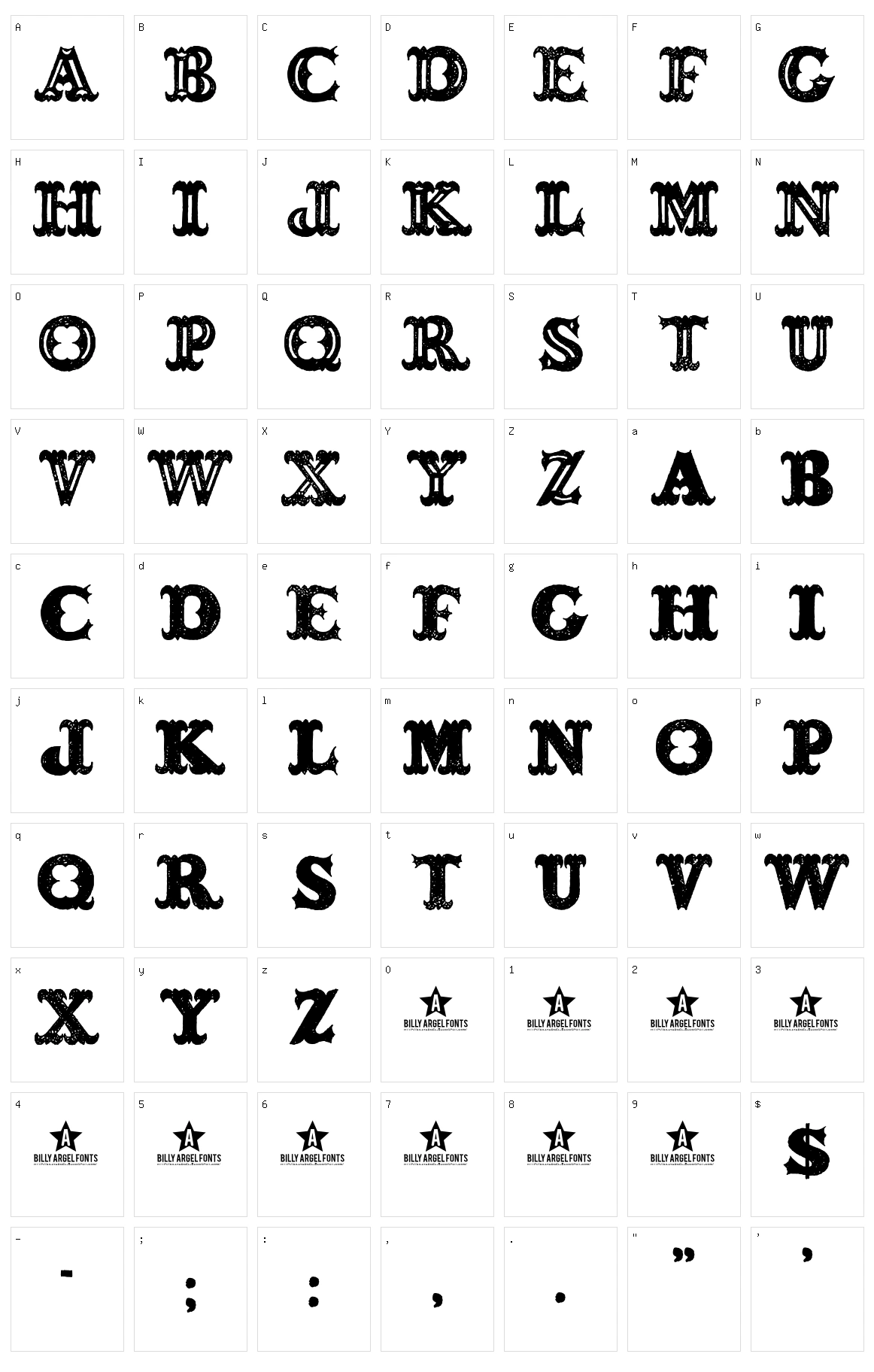
The free font Bonesoup is carefully designed by Billy Argel Fonts ®, showcasing a thoughtful balance of creativity and usability and falls under the Eroded font style. When you download the ZIP file, it contains only 104.34 KB of font files, making it lightweight and quick to download. Please review the license details below to understand permitted usage and distribution rights. If license information is not available, we recommend using this font for personal projects only or contacting the author directly for commercial usage permissions.
BONESOUP